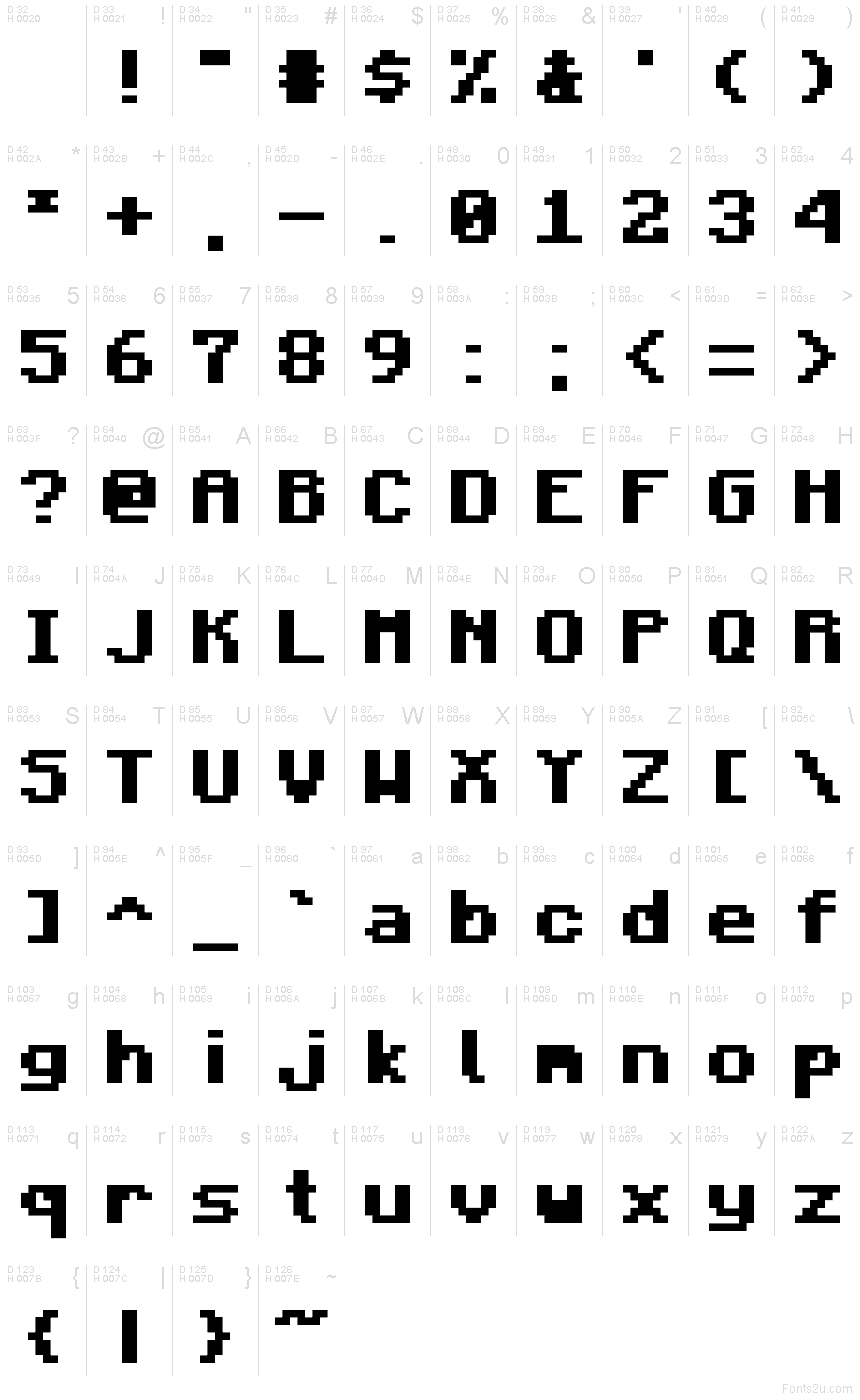
mac's Minecraft Bold
mac's Minecraft Bold font by macimas is a playful expanded bitmap font with pixelated elements and a digital gaming-inspired aesthetic. Built to look pixelated, each letter mimics the classic look of Minecraft avatars and elements.
❤️ Main - Minecraft font with bold and italic styles
?️ Tweaked - Modifications to the main package, primarily to enhance the readability of certain bold characters
✨ Extended - A small experiment that adds more characters to the main package for fun